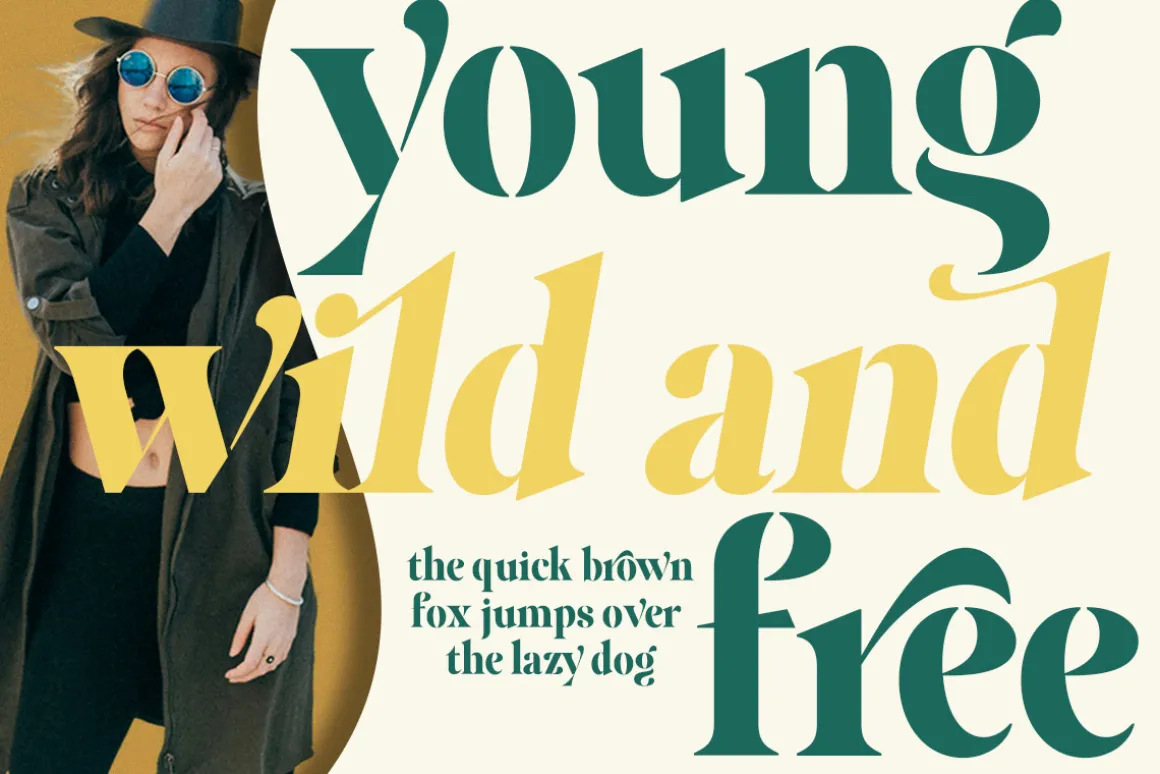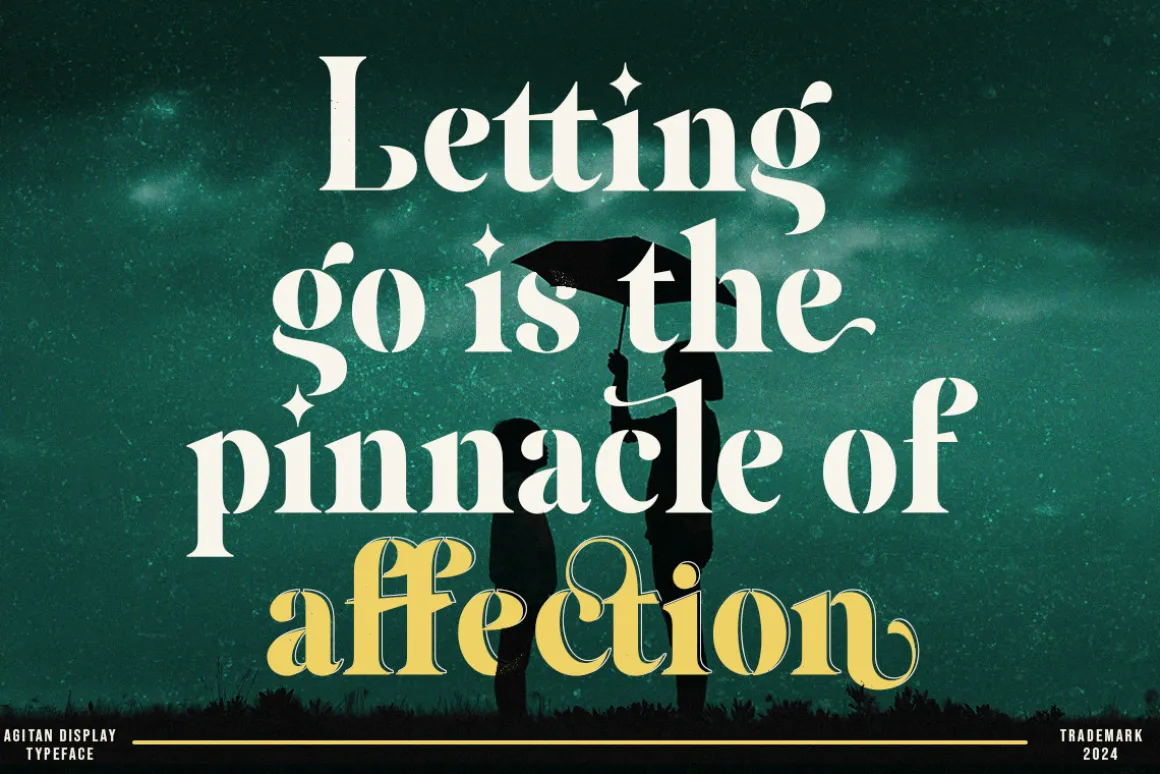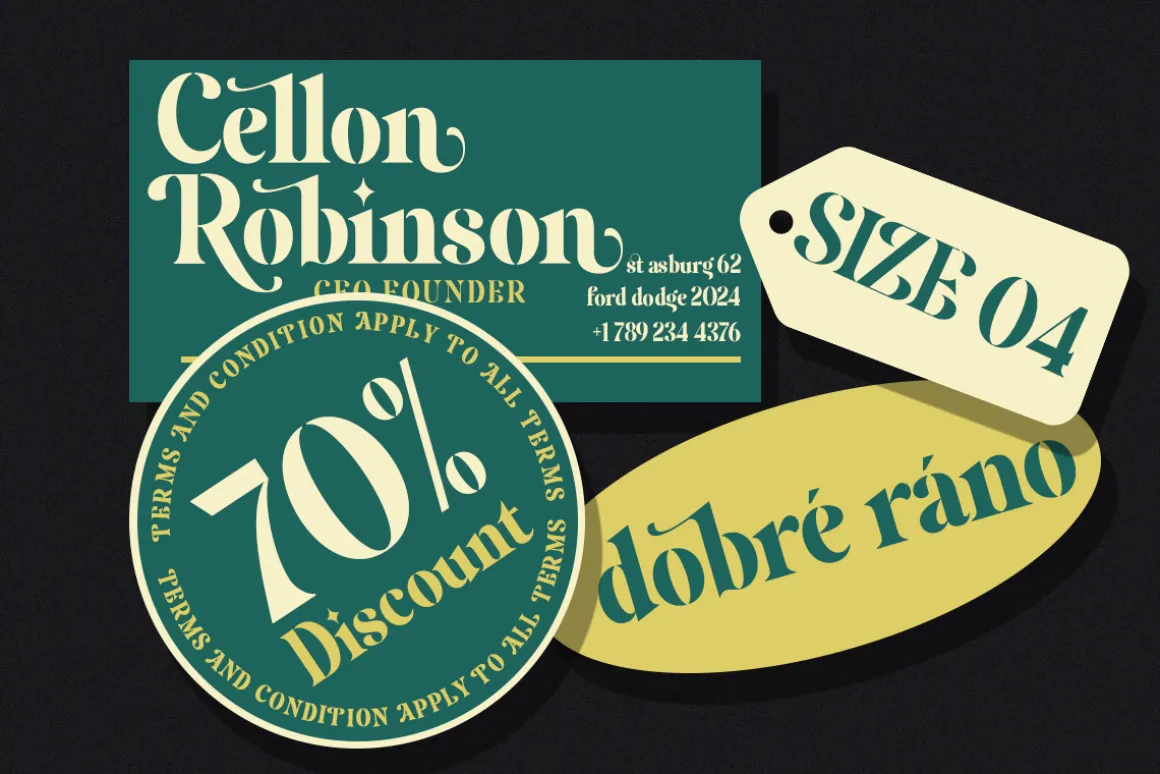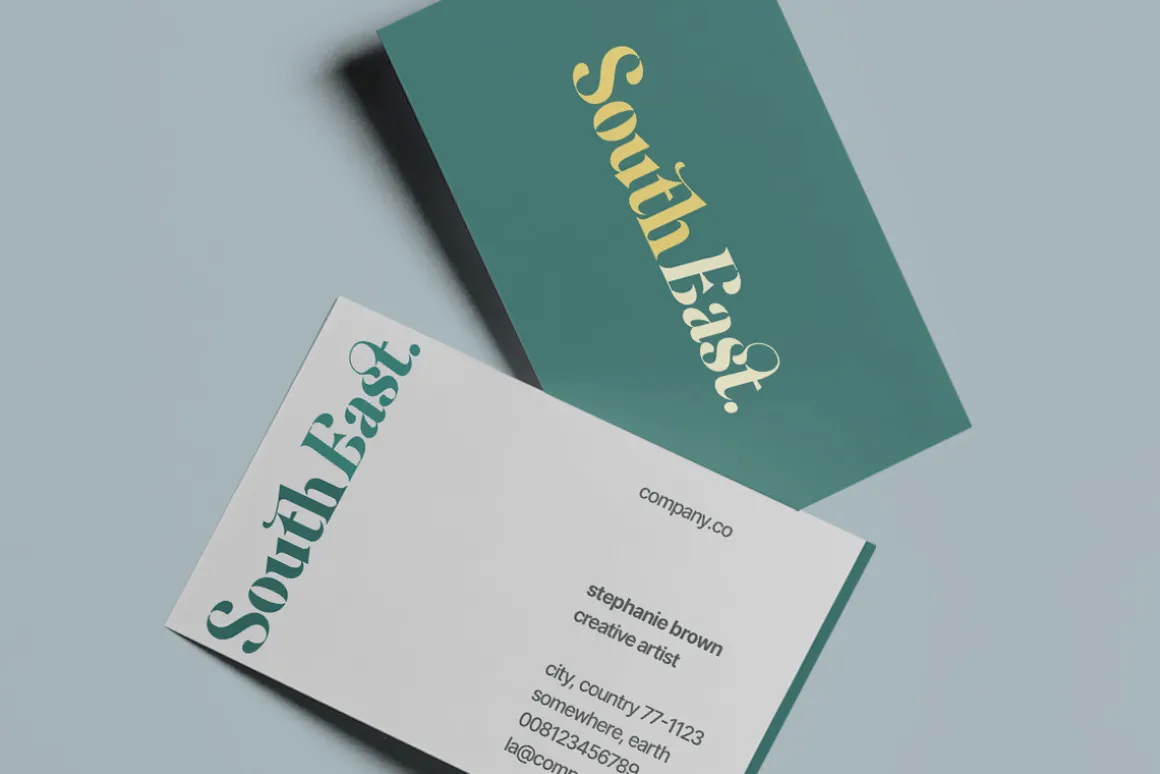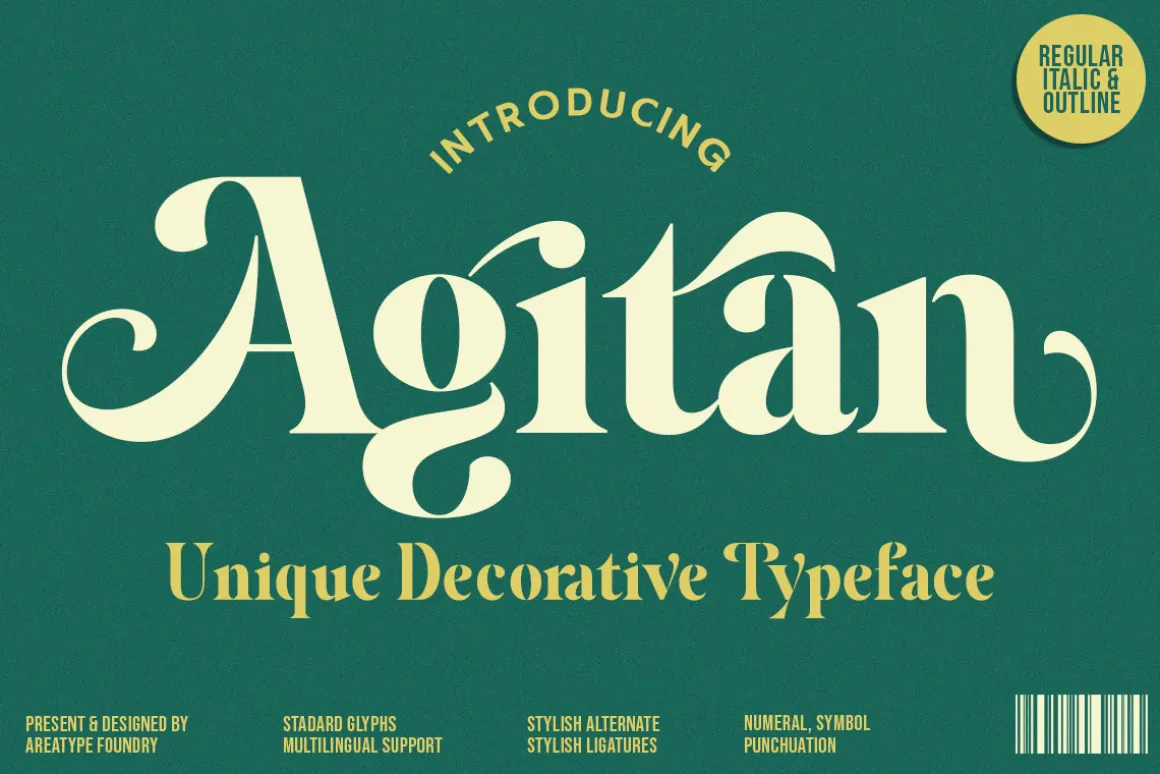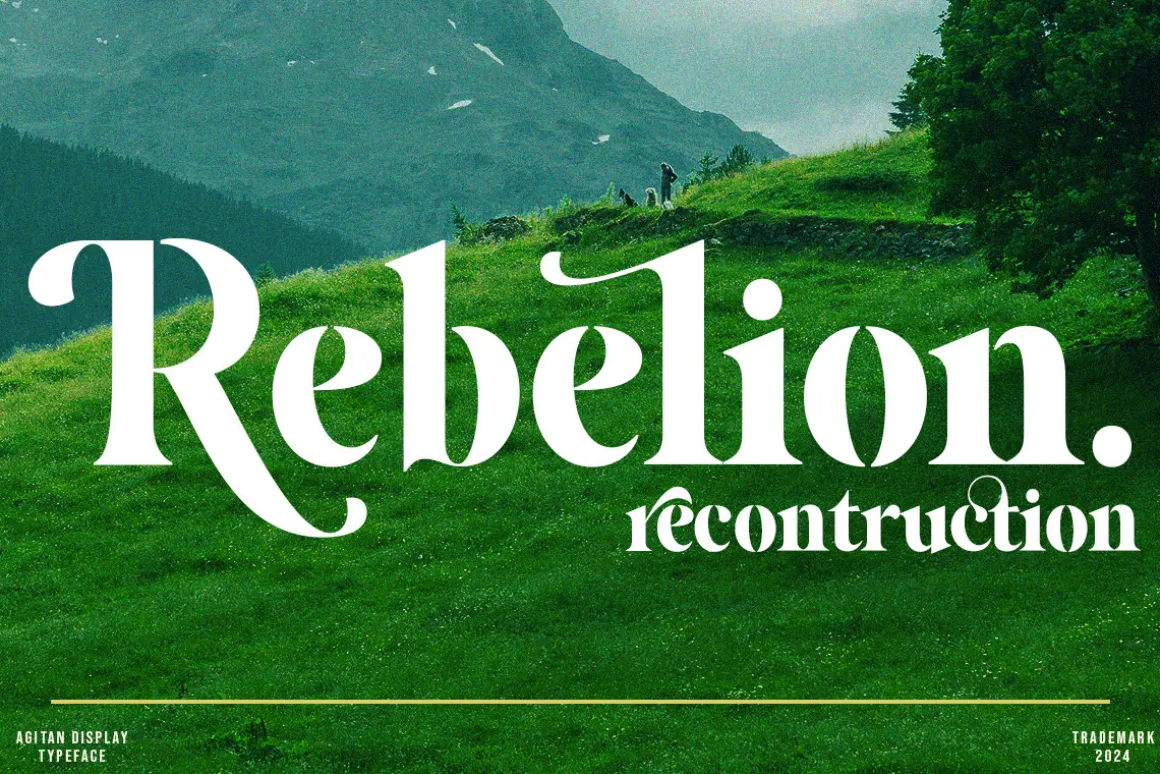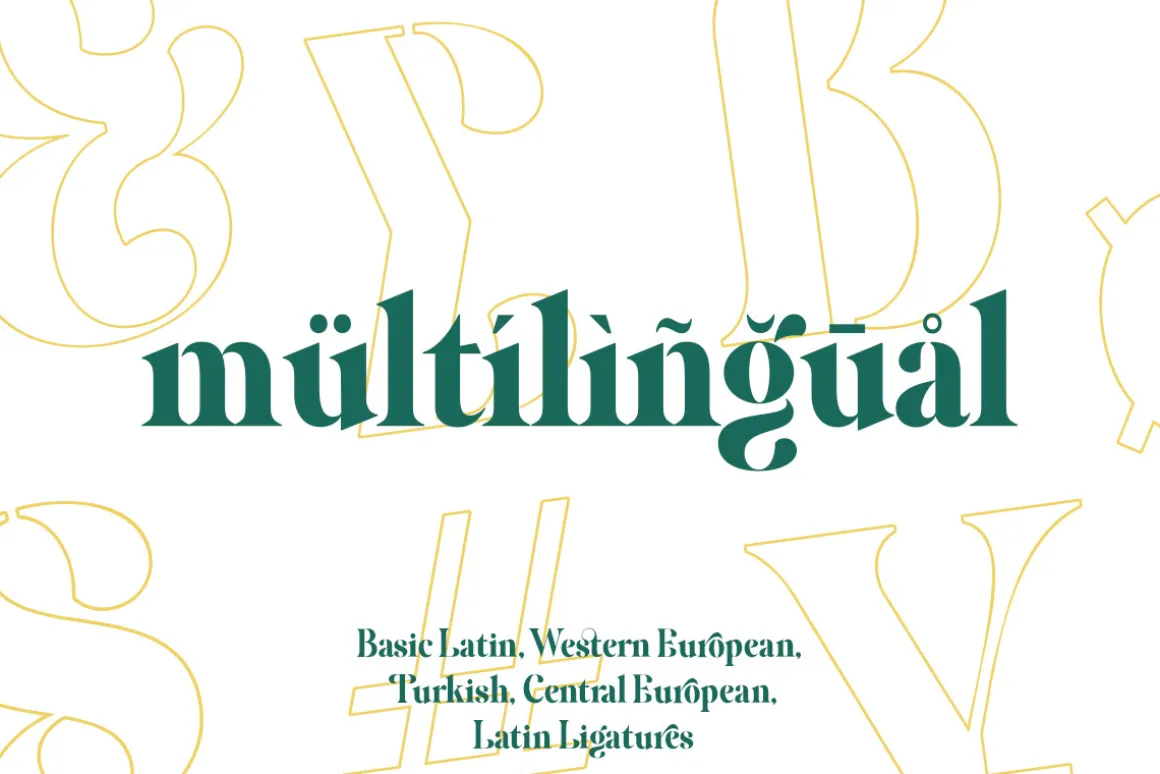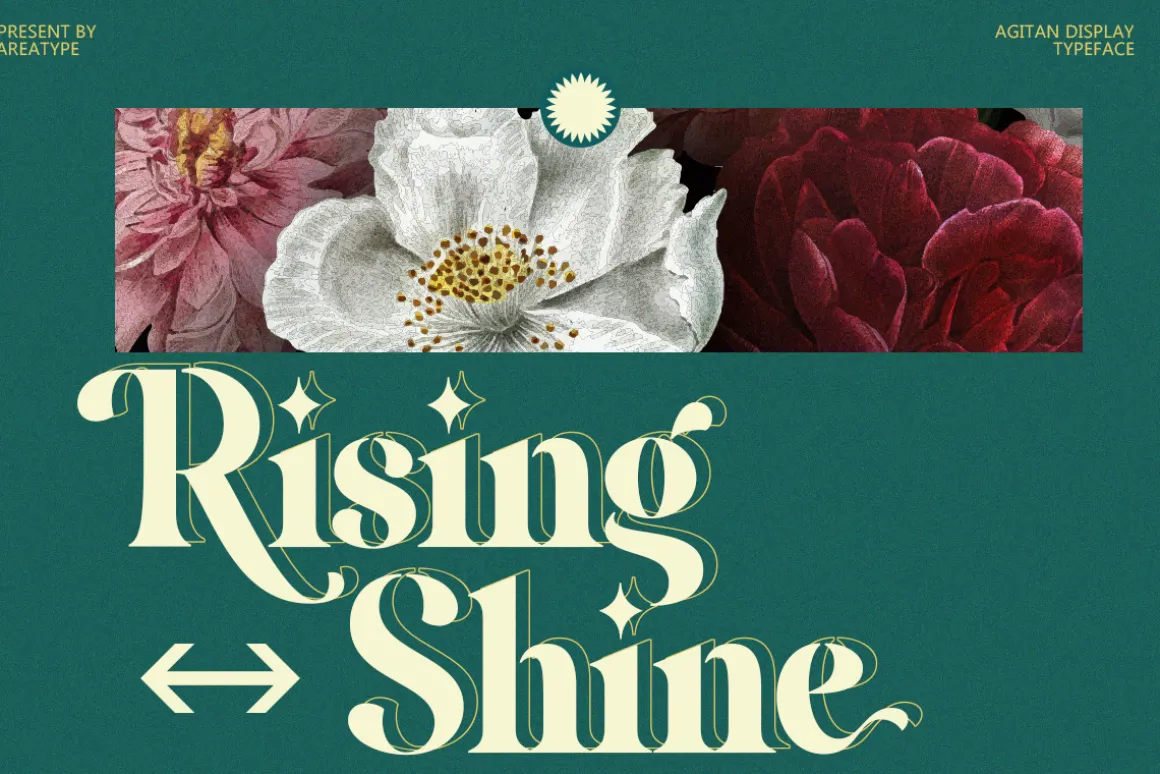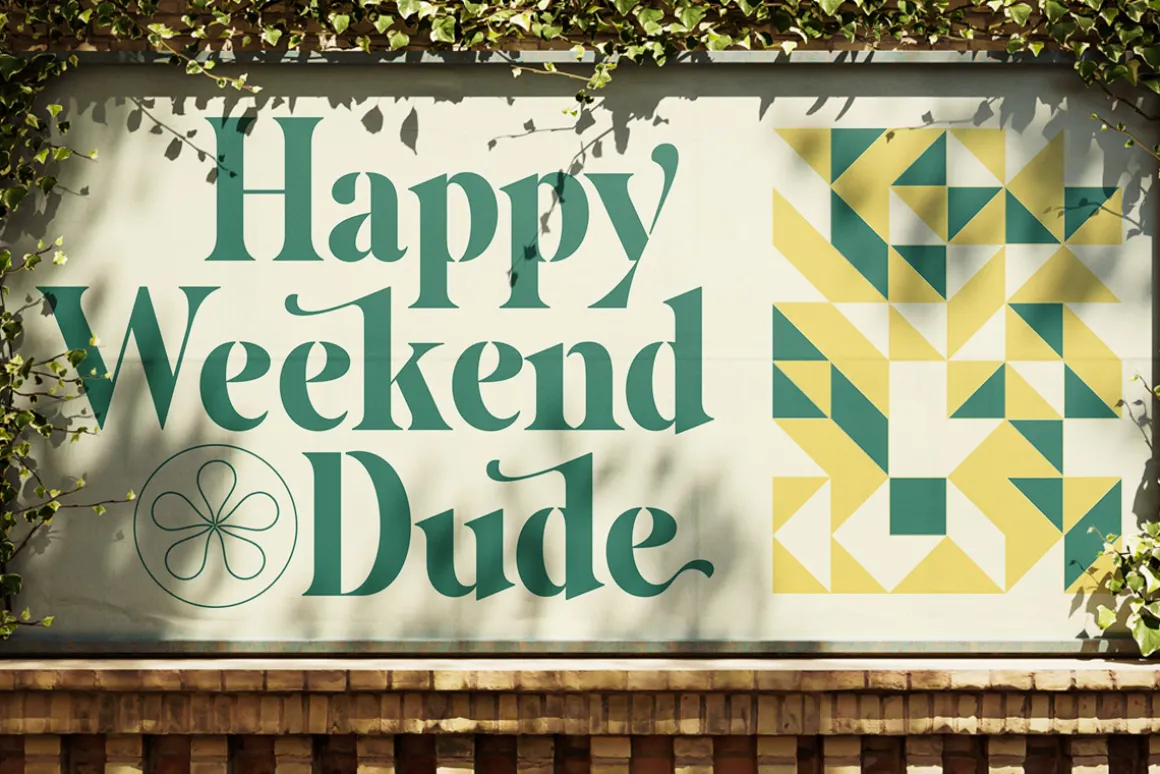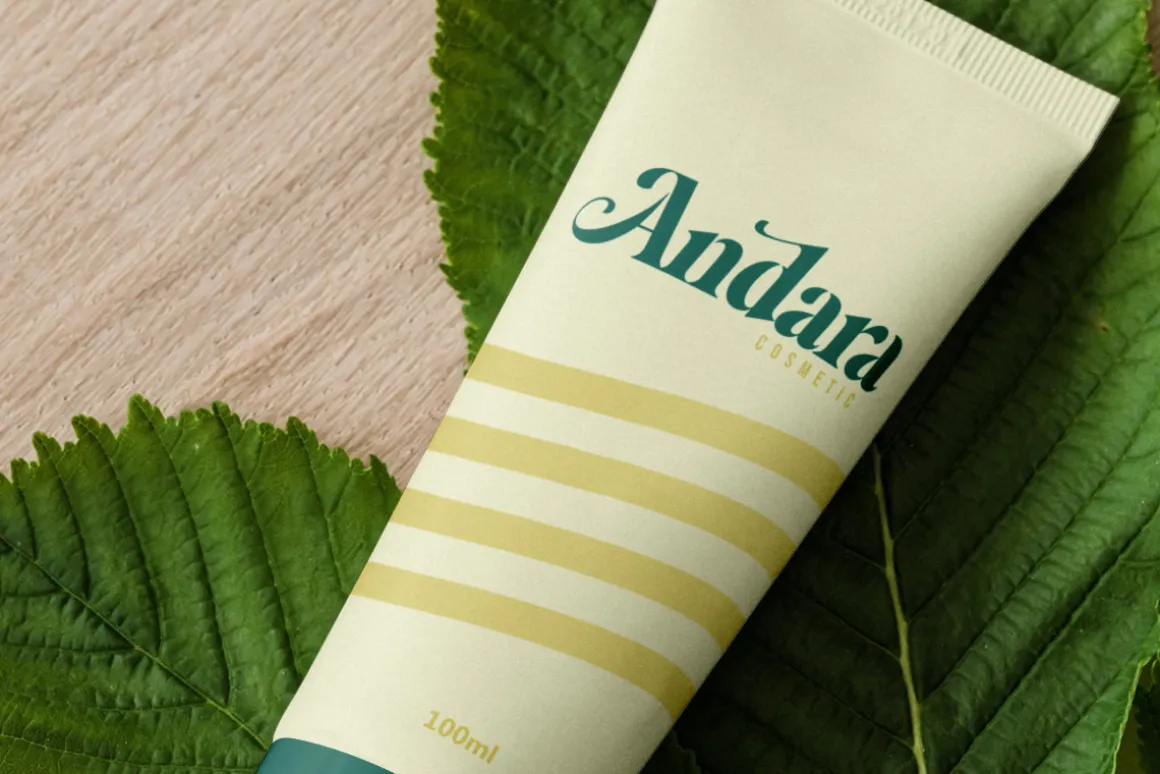
Agitan Display is a serif display font that has a unique, feminine and elegant style.
- Stylistic Alternates & Ligatures
Good choice for branding, magazines, posters, advertising, print, packaging, headlines, web design etc.